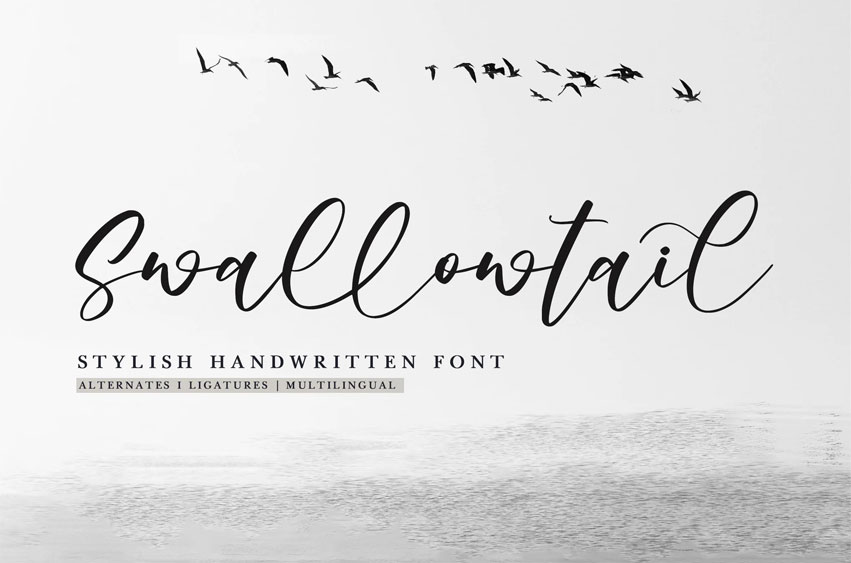
Swallowtail Font
Swallowtail Font Stylish Handwritten Font contains a lowercase, uppercase, symbol, and also supports multi-language. There’s a lot of ligature in this font.
Swallowtail – Stylish Handwritten Font also comes with ligatures, stylistic alternates and many more. this font suitable for fashion, branding, catalog and other design that you want.